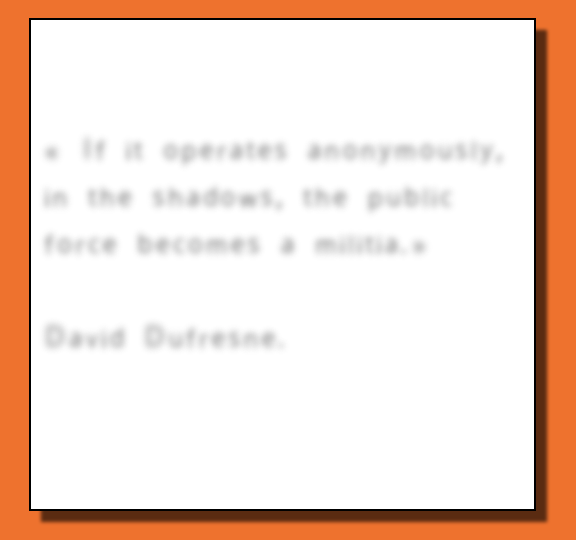
securitaire font
The first blurred font
Securitaire denounces the absurdity of the FR law that punishes the spread of unblurred images of a police officer "with the manifest aim of damaging his physical or psychological integrity". Securitaire allows you to manifestly damage a person's physical or psychological integrity in writing.